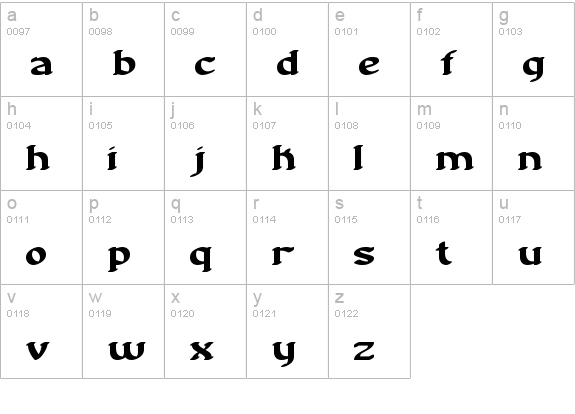
Nostalgia BRK Font Details
Nostalgia BRK font is a charming and whimsical typeface that exudes a sense of nostalgia and warmth. Its playful curves and retro-inspired design make it the perfect choice for projects that require a touch of vintage flair. This versatile font is suitable for a wide range of applications, from branding and packaging to invitations and social media graphics. What's even better is that Nostalgia BRK font is available for free download at FontsMarket.com. So, whether you're a designer looking to add a nostalgic touch to your projects or someone who simply appreciates the beauty of vintage-inspired fonts, Nostalgia BRK is a must-have addition to your font collection. Download it today and let its timeless charm elevate your designs to a whole new level.